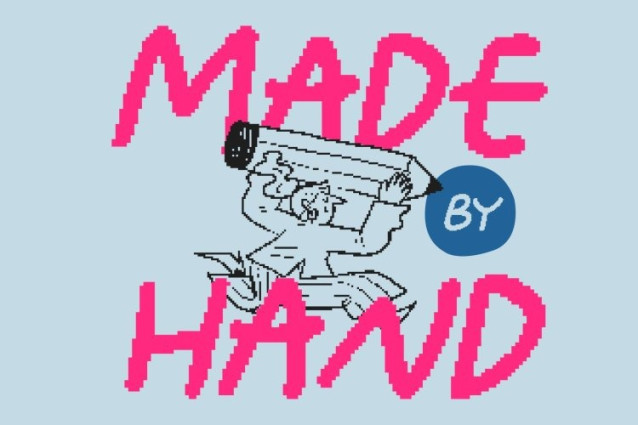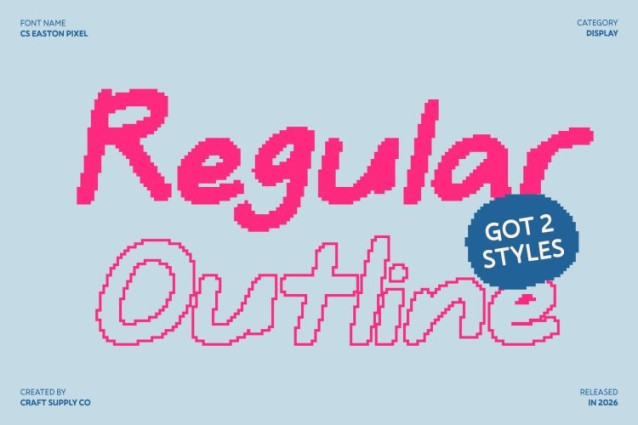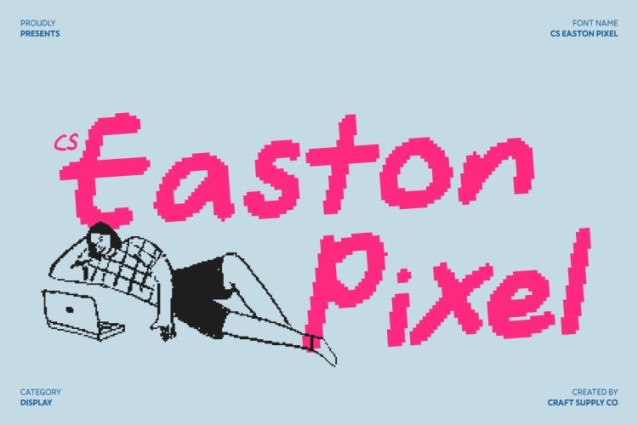
CS Easton Pixel Font
CS Easton Pixel Font This captures the heart of creativity through its natural handwritten flow combined with a distinctive pixel texture. Blending a casual sans serif structure with freehand expression, this font feels warm, and full of personality. Each stroke appears personal and organic, while the pixel style adds a nostalgic digital twist that feels both playful and eye-catching.
Modern Expression Meets Retro-Digital Style
This font balances modern readability with expressive energy. Its smooth rhythm keeps text clear and friendly, while the pixel construction introduces a charming old-technology aesthetic. The result is a font that feels authentic, cheerful, and visually engaging perfect for designers who want a handmade look with a digital edge.
Perfect for Playful Branding and Creative Titles
Bring your words to life with this font’s joyful character. Ideal for youth-focused branding, fun event posters, quirky packaging, and social media graphics, this font delivers a friendly and distinctive tone that instantly connects with audiences. The pixel style makes it especially strong for digital visuals, retro themes, or nostalgic tech-inspired designs.
Full of Character, Flexible, and Eye-Catching
With its dynamic shapes, handcrafted feel, and pixel-based form, this font offers versatility without losing personality. It’s not just a font it’s a celebration of creativity, combining human warmth with digital charm to create designs that feel fun, and memorable across both modern screens and old-school tech aesthetics.